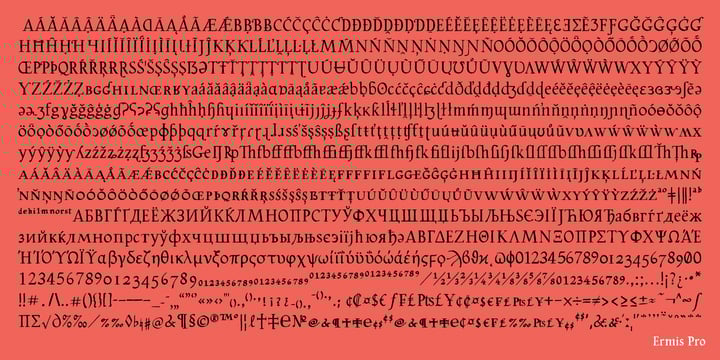
Ermis Pro
by Wannatype
About Ermis Pro Font Family
Ermis Pro – handwritten, multilingual, natural
Ermis Pro is a cross between a perfectly finished, comprehensive, classically cut old face type and handwriting. It combines the slightly irregular contours you see in very small letter sizes caused by the flow of ink on paper with the elegant look and feel of a serif font. This makes Ermis Pro the perfect choice for stylish printed materials with a personal touch, doubtlessly winning fans in the worlds of fiction and fantasy alike.
Ermis Pro is robust and easy to read in both display and body copy. With its comprehensive character set, it is suitable for a wide range of typographical uses.
Besides the standard Latin, the character set includes the Greek and Cyrillic alphabets as well as extended Latin with pan-African letters and the complete International Phonetic Alphabet (IPA). Ermis Pro also comes with numerous OpenType features such as discretionary ligatures, small capitals and nine number variants.
The typeface features upright and italic fonts in three weights: Light, Regular and Bold.
Designers: Ekke Wolf
Publisher: Wannatype
Foundry: Wannatype
Design Owner: Wannatype